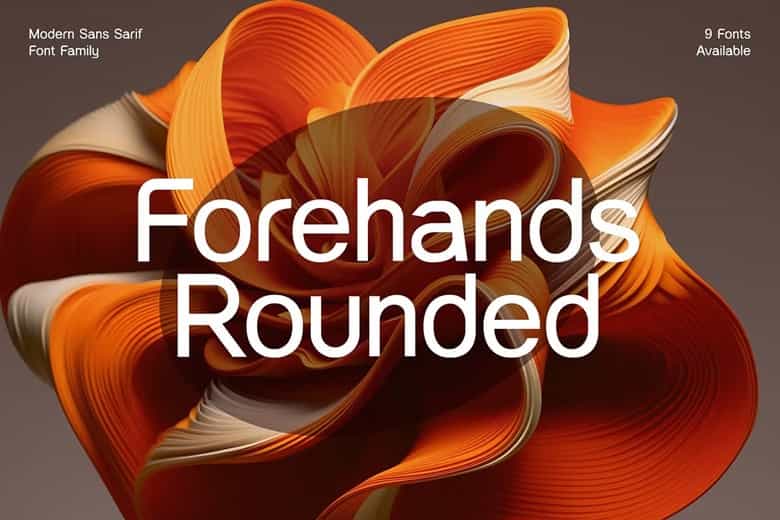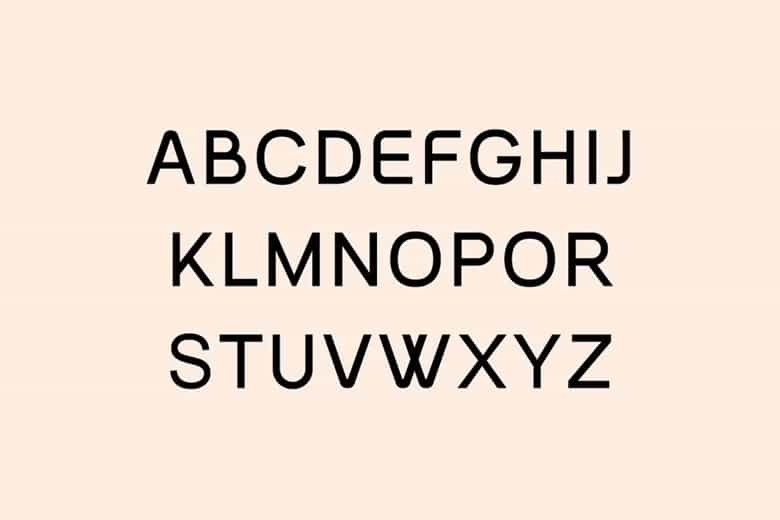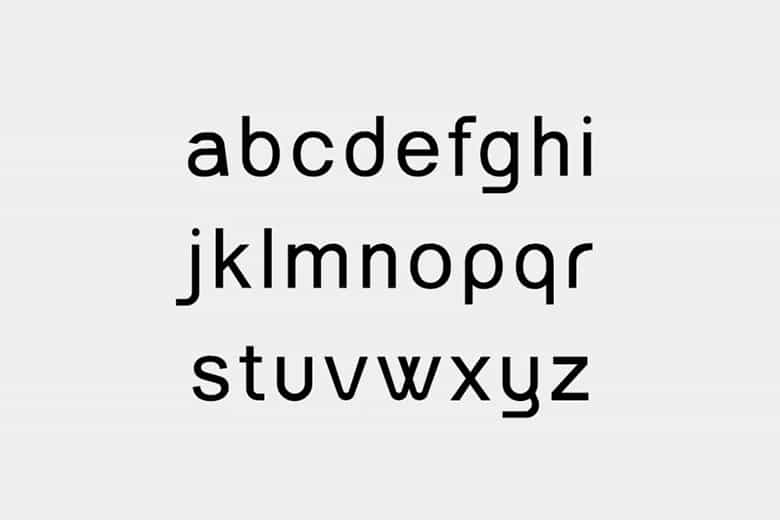
Forehands Rounded is an elegant rounded sans serif font family. This font is best to use for any type of works, such as logo, wedding, typography quotes, magazine or book covers, web headers, branding, and etc.